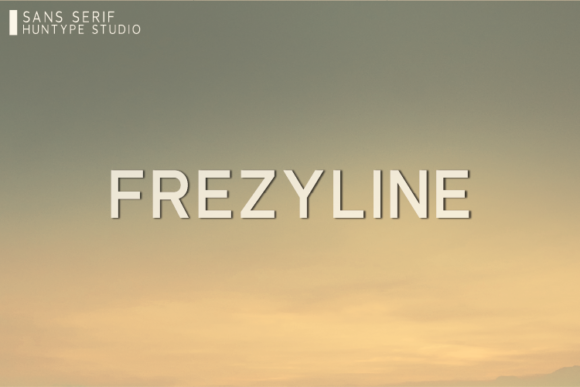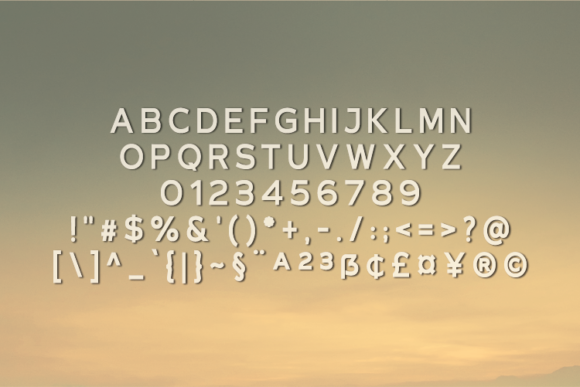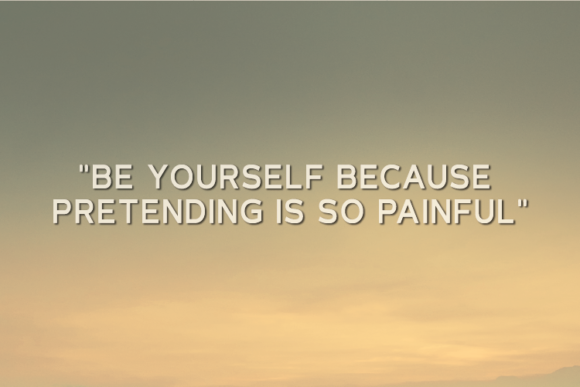
Unlock the Power of Simplicity with the Frezyline Font
You know that feeling when a single element can elevate your entire design project? It’s like a spark that sets everything off in the right direction. For designers, finding that perfect font can be a game-changer. Imagine being able to create a cohesive and stylish visual identity for your brand or project with ease.
Enter the Frezyline Font, a minimalist sans serif font designed to add a touch of genuine elegance to any design. Its clean lines and simple typography make it incredibly versatile, allowing it to seamlessly fit into a wide range of projects. Whether you’re working on a corporate website, a blog, or a creative portfolio, the Frezyline Font is sure to bring a level of sophistication and refinement that will set your work apart.
As a valuable addition to any designer’s toolkit, the Frezyline Font offers a level of flexibility and creativity that’s hard to find in other fonts. Its unique blend of simplicity and style makes it an ideal choice for designers looking to add a touch of class to their work.
Frezyline Font Key Features
- Font Family: Frezyline Font, a unique sans-serif font designed for modern and minimalist designs.
- Font Size: Supports a wide range of font sizes, from 8pt to 1000pt, making it suitable for various design applications.
- Resolution: Optimized for high-resolution displays, including Retina and 4K screens, with a minimum recommended resolution of 72 dpi.
- Unique Characteristics: Frezyline Font features a distinctive geometric shape and a clean, modern aesthetic, making it ideal for digital and print designs.
- Language Support: Supports a wide range of languages, including Latin, Cyrillic, and Greek scripts, making it a versatile font for global designs.
Frezyline Font Review
First off, I have to say that I’m really impressed with the Frezyline Font. ✨ It’s modern, sleek, and perfect for anything from digital products to branding materials. The font is highly legible, even at smaller sizes, which makes it ideal for use on various platforms. ✨ I also appreciate the font’s versatility – it can be used for both body text and headings, which makes it a great addition to any design project.
However, there are a few limitations to keep in mind. ⚠️ One of the main concerns is the font’s limited language support. If you’re working on a project that requires multiple languages, you may need to use a different font or make some compromises. ⚠️ Additionally, the font may not be suitable for very formal or traditional designs, as it has a bit of a modern, edgy feel to it.
Designers’ Takeaways
- Perfect for digital products and modern branding materials
- Highly legible, even at smaller sizes
- Versatile and can be used for body text and headings
- Limited language support
- Not suitable for very formal or traditional designs
Tips for Getting the Most Out of Frezyline Font
Use Frezyline Font to add a touch of modernity to your designs. Experiment with different font sizes and colors to create visual interest. For best results, pair Frezyline Font with clean and minimalist designs.
Use Frezyline Font for:
- Infographics and data visualizations
- Business cards and resumes
- Web design and UI elements